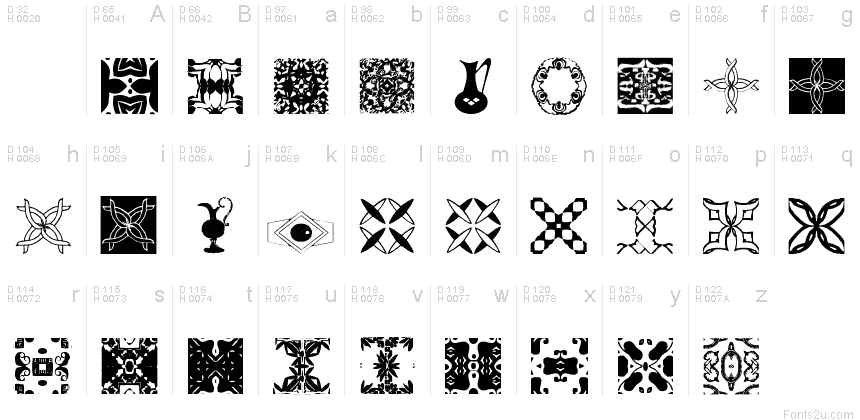
BRTrivets
BR Trivets font by The BackRoom is a free dingbat typeface that turns every keystroke into an ornate tile, bursting with swirling curls, sharp crosses, and mirror-like symmetry. The solid black-and-white blocks lock together like vintage ceramic squares, so you can build borders, dividers, or full patterned panels without fussing over alignment. Each mark feels bold and inky, giving even a plain layout a richly textured, handcrafted edge.
Using BR Trivets, you can quickly dress up invitations, menu covers, packaging labels, social posts, scrapbooks, and digital stickers with repeating trims and frames. This free font shines when you treat the icons as modular ornaments-stack them, flip them, or run them in long horizontal bands. For a clean, readable combo, pair these dense patterns with a simple geometric sans serif and let BR Trivets handle the decoration at larger sizes.